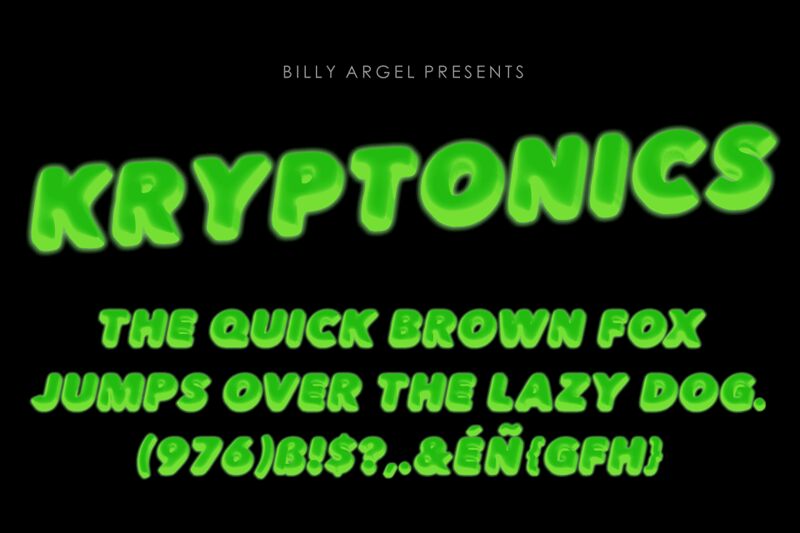
KRYPTONICS Bold, a mesmerizing display font designed by Billy Argel Fonts, is here to make a bold statement. With its striking 3D style and extra-bold weight, this font demands attention and adds depth to any project it graces.
Perfect for branding and logo designs that want to leave a lasting impression, KRYPTONICS Bold will make your visuals pop off the screen. Its unique character makes it an excellent choice for creating eye-catching headlines, advertisements, or even album covers.
Let KRYPTONICS Bold elevate your designs with its captivating 3D appeal.